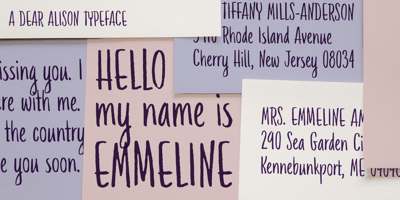
Emmeline Font Family was designed by Alison Argento and published by Dear Alison. Emmeline contains 1 styles and family package options. There’s something about the endless variations of handwriting, the tactile process of pen, pencil or brush to paper, and the personal and ephemeral quality as a whole. I recently came across some old handwritten letters from when my younger sister was going to college, and as soon as I saw them, a flood of memories came back to me. All just from seeing her handwriting. That’s just one thing handwriting can do.I hope you find enjoyment in my sister’s handwriting as much as I still do. This font is complete with alternates that will auto-typeset via the ligature feature to give a more handwritten feel.